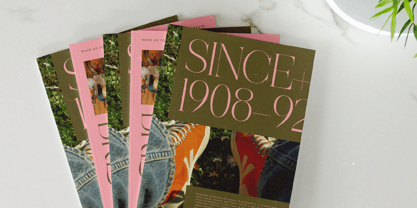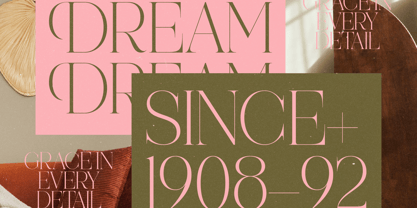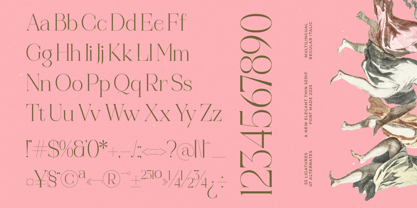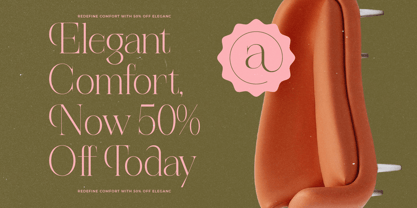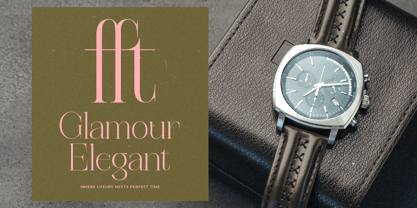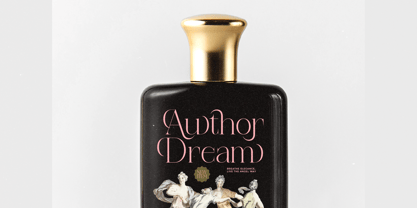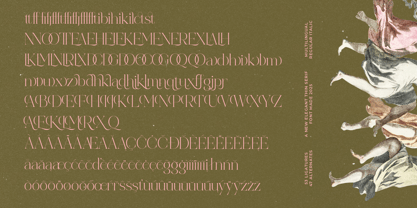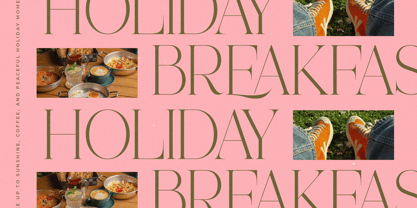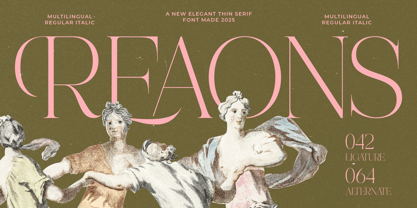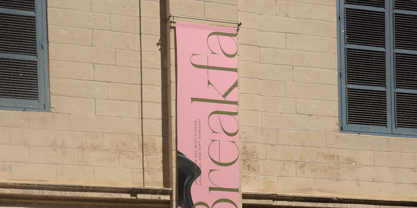
The Reaons Font Family was designed by Heru Utama Putra and published by Timelesstype Studio. Reaons contains 2 styles and family package options. More about this family
Reaons - Elegant Thin Serif Font , Reaons is an elegant thin serif font that embodies sophistication and timeless beauty. Featuring 42 ligatures and 64 alternates, it offers graceful letterforms with refined contrast, perfect for luxury branding, editorial design, invitations, and packaging. With its delicate curves and modern minimalist aesthetic, Reaons adds a touch of high-class elegance to any creative project, making it ideal for both classic and contemporary designs.
Reaons